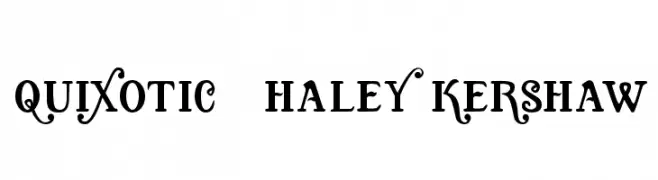
Quixotic, Haley Kershaw Font
A whimsical and decorative serif font with playful flourishes.
Quixotic Font
A decorative font with whimsical swirls and vintage flair.
Bodge Italic Font
A pixelated, monospaced italic font with a retro digital aesthetic.
Arrow Stomper Font